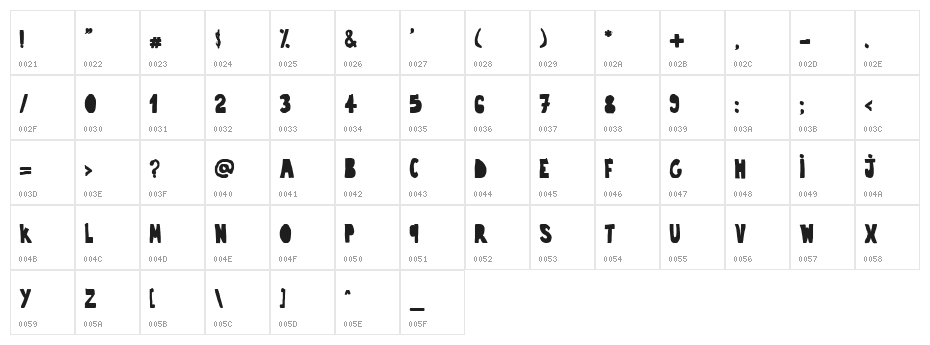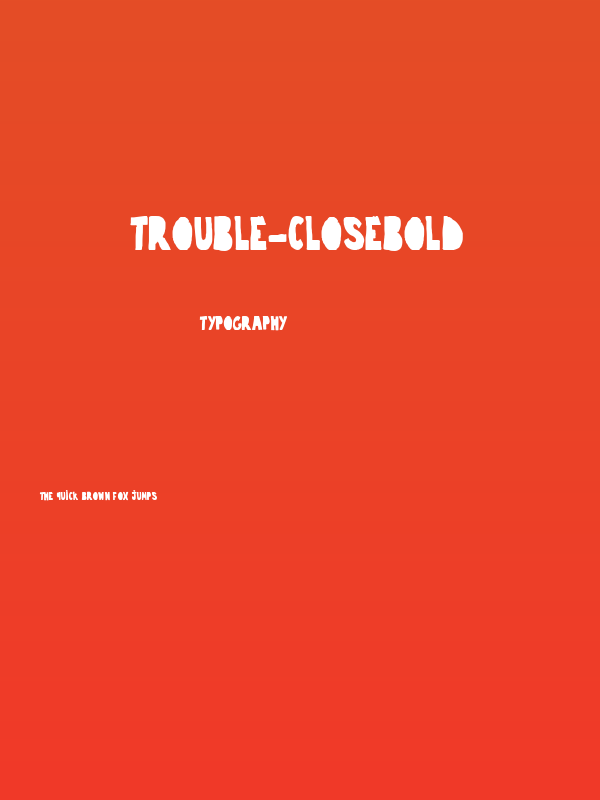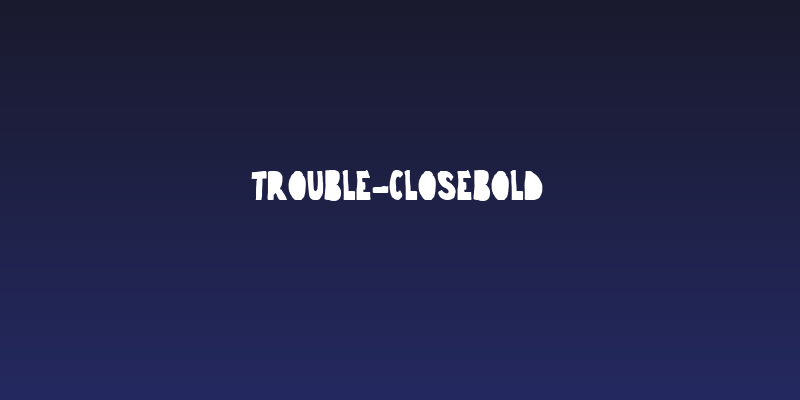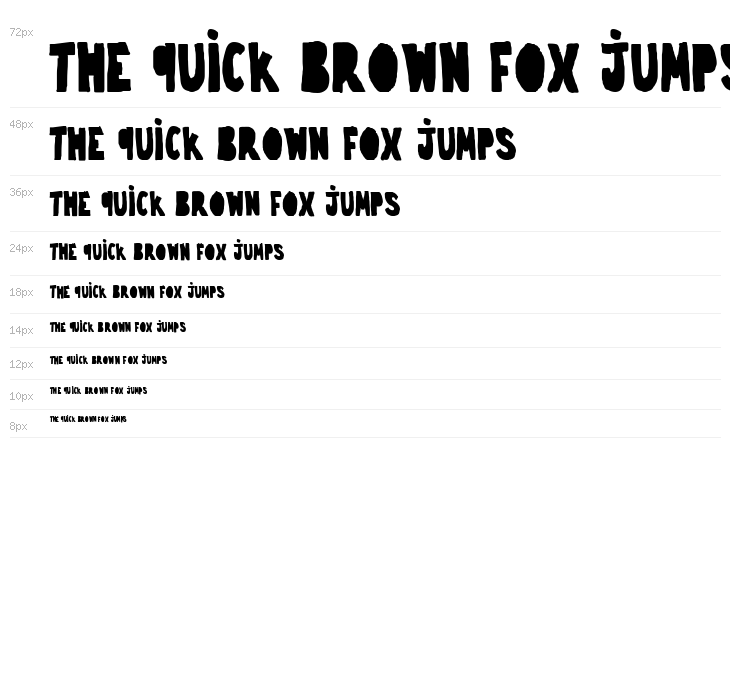
trouble-closebold Font
trouble-closebold Description
This font features a bold and playful design with a hand-drawn aesthetic. The characters are thick and slightly irregular, giving a whimsical and informal feel. The uppercase and lowercase letters maintain a consistent style, with rounded edges and a slightly uneven baseline, adding to its charm. Numbers and special characters follow the same playful design, making it suitable for creative and casual projects. The font's unique style makes it stand out, perfect for designs that require a touch of fun and personality.
| Overall Style | Playful, Whimsical, Hand-drawn |
| Proposed Projects | Ideal for children's books, playful branding, posters, and creative invitations. |